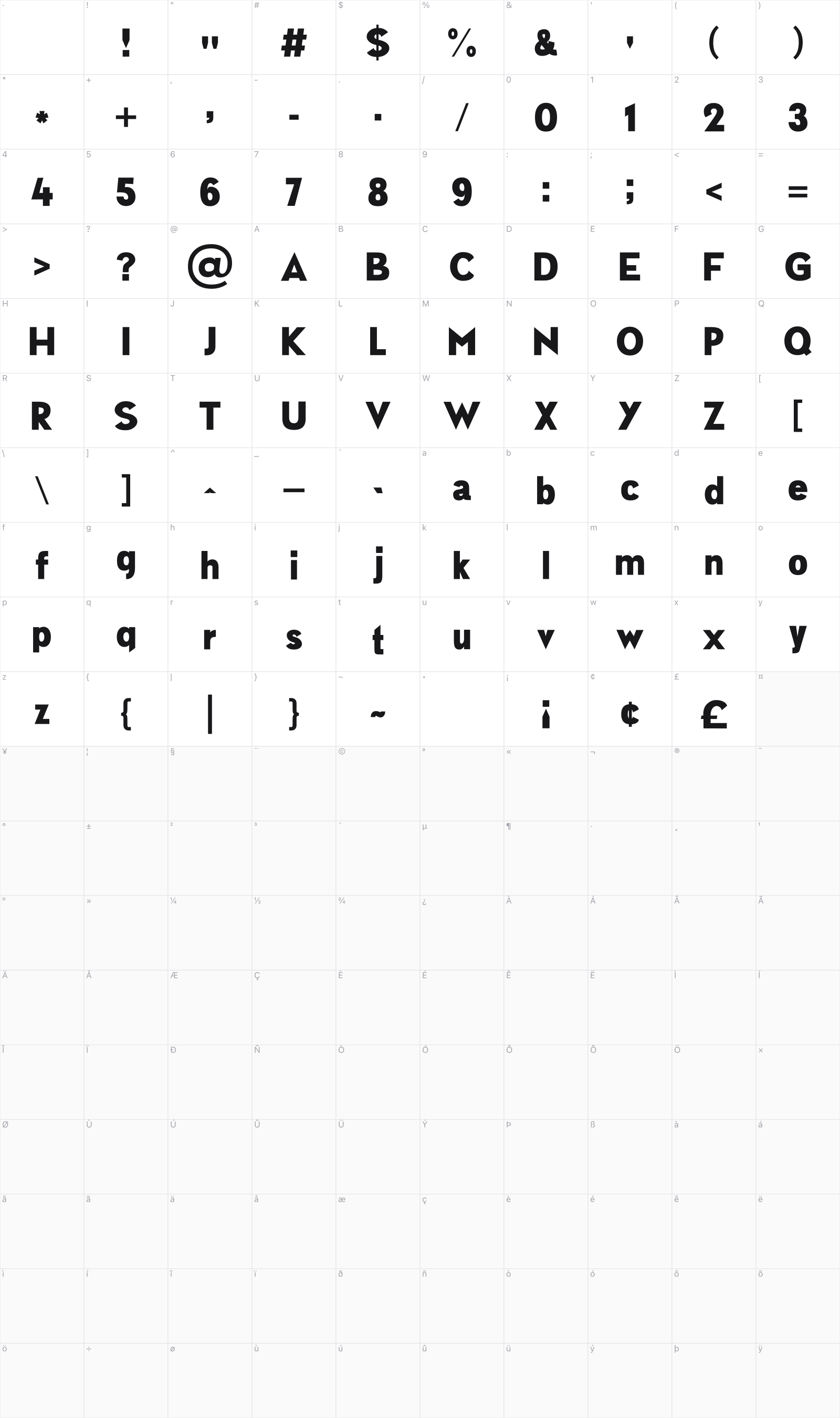
Newsflash
by Darrell Flood
Newsflash is a wide, ultra-heavy geometric display face from Darrell Flood where every letterform takes up as much space as possible. The thick, blocky construction gives it a loud, attention-grabbing quality that feels right at home in headlines, posters, and bold branding. There's nothing subtle about it, and that's the point.